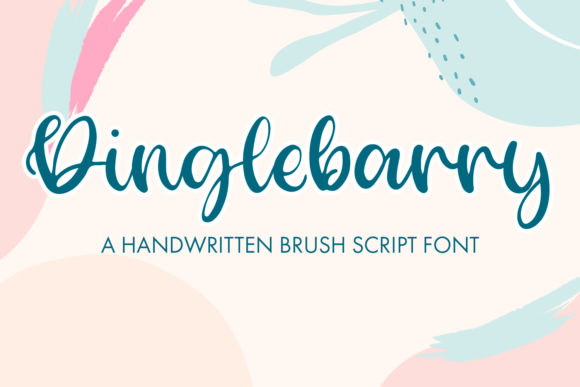
Feel the joy of expressing yourself with Dinglebarry Font - a spirited and free script typeface beautifully handwritten by freelingdesignhouse, a renowned artist who captured the essence of joyous emotions into stunning letterforms. Immerse yourself in the artistic charm of Dinglebarry, a script font that dances across the screen, capturing the essence of teaching cursive in a lively and engaging way.
Indulge in the sheer elegance of Dinglebarry Font, a captivating script font that radiates creativity and flows with an unmatched grace. With Dinglebarry by your side, teaching cursive transforms into an enchanting adventure, where each letter dances across the page like a delicate melody. Its unique and exquisite style brings life to your designs, making them stand out from the mundane and ordinary.
Embrace the playful spirit of Dinglebarry Font and let your imagination soar. Its carefully crafted characters add a touch of whimsy and wonder to any project, creating a visual symphony that will captivate your audience. Dinglebarry is not merely a font; it's an expression of individuality, a reflection of your unique style, and a gateway to a world where creativity knows no bounds.
Unleash the boundless potential of Dinglebarry Font and embark on a journey of self-expression. Let your words dance and twirl in perfect harmony, mesmerizing your readers with every stroke of the pen. Dinglebarry Font is more than just a tool; it's an extension of your creative spirit, a testament to your passion for teaching cursive in a way that ignites imaginations and leaves an indelible mark on the hearts and minds of your students.